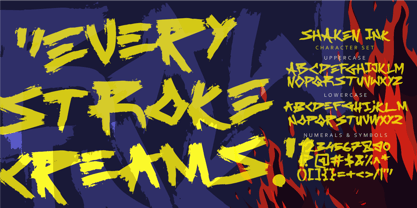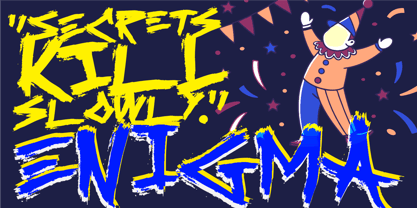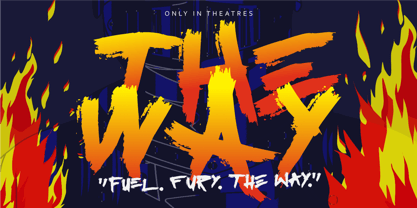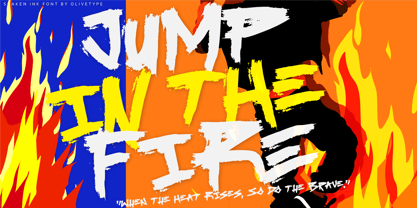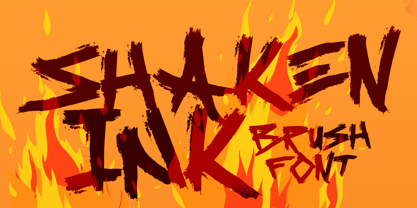
Shaken Ink
La familia tipográfica Shaken Ink fue diseñada por Nurul Hidayani y publicada por Olivetype. Shaken Ink contiene 1 estilos. Más información sobre esta familia
Shaken Ink is a raw and rebellious brush font that brings a surge of untamed energy to your designs. With its aggressive strokes, rough textures, and hand-drawn flair, this typeface delivers a bold visual punch that's perfect for movie posters, product packaging, album art, branding, and more.
Inspired by ink-splattered chaos and street-style grit, Shaken Ink captures a handcrafted, expressive vibe that commands attention. Whether you're designing for action-packed films, edgy labels, or underground fashion brands, this font screams attitude and creativity in every letter.
Add a touch of wild rebellion to your next project with Shaken Ink — where raw brush meets fearless expression.